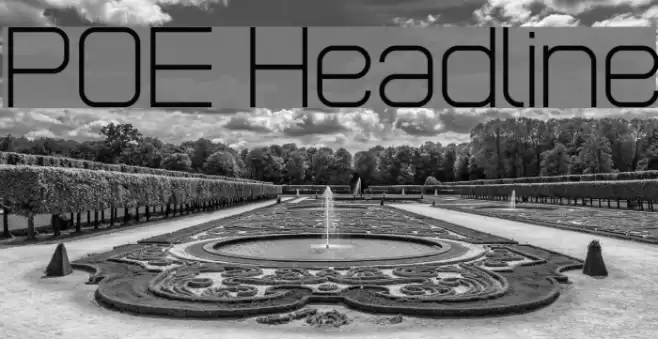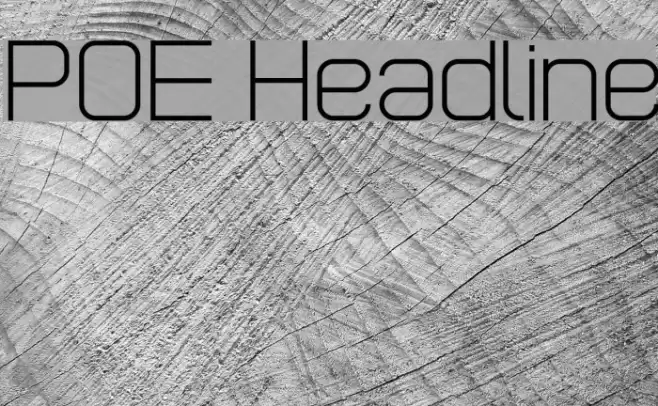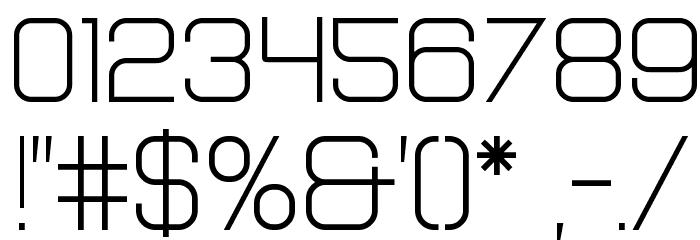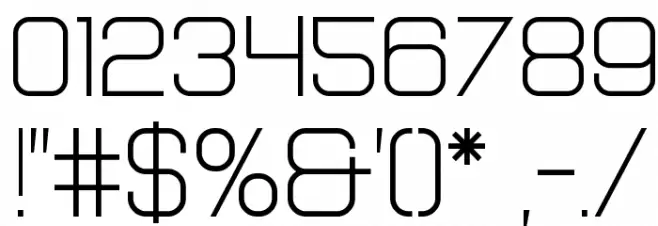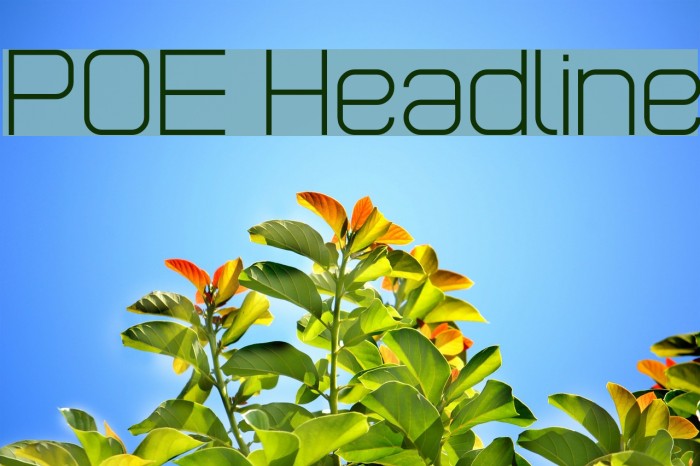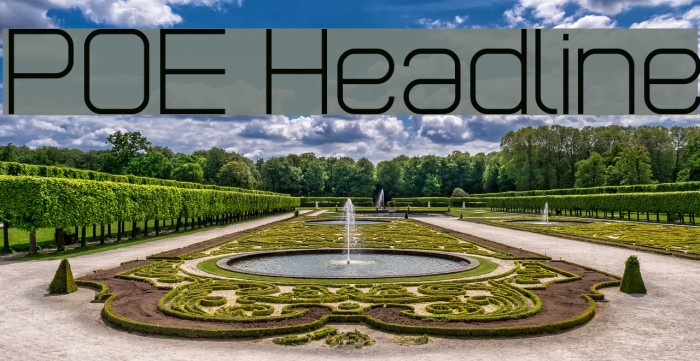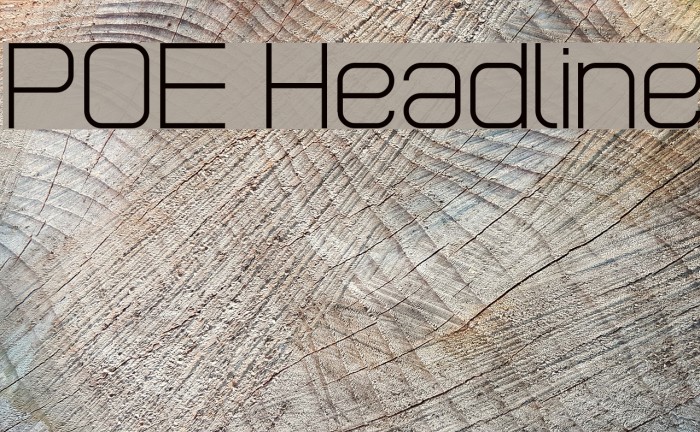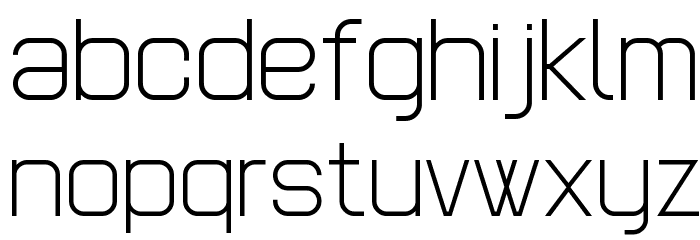
POE Headline Font
POE Headline Description
This font features a clean, geometric design with a modern aesthetic. The characters are constructed with uniform line thickness, giving it a sleek and contemporary look. The uppercase and lowercase letters are well-balanced, with a consistent height and width that enhances readability. The numerals and special characters maintain the same geometric style, ensuring a cohesive appearance across all text elements. Its minimalistic design makes it versatile for various applications, from digital interfaces to print media. The font's simplicity and clarity make it an excellent choice for projects that require a modern and professional touch.
A modern, geometric font with clean lines and uniform thickness from Uncategorized fonts.
- Proposed Projects: Ideal for branding, digital interfaces, print media, and modern design projects.